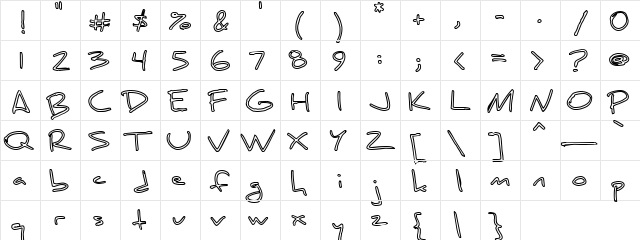
Hollow Breeze Regular
Design Context for Hollow Breeze Typeface
Hollow Breeze is a composed and adaptable typeface that performs quietly and consistently across a wide range of design contexts.
Pro Tip: Use Hollow Breeze in both headline and body roles to test its range before committing to a single application.